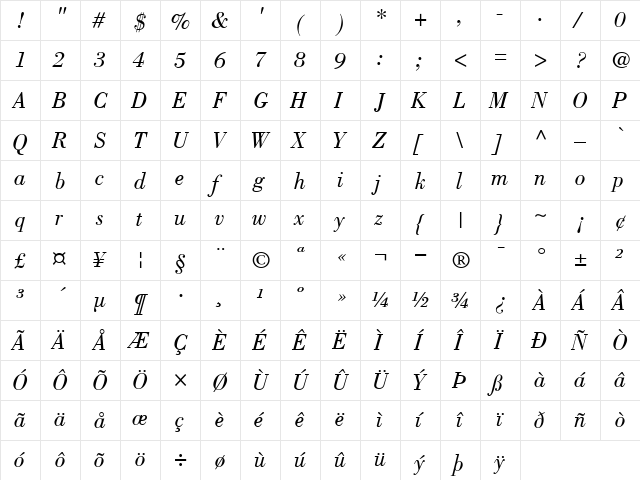
Bodoni-Book BookItalic Font Preview
Bodoni-Book BookItalic
Design Context for Bodoni-Book Typeface
Bodoni-Book takes a measured approach to typography — its balanced proportions and neutral character make it a reliable workhorse for both digital and print work. Its italic angle brings a sense of urgency and motion to the letterforms.
Pro Tip: Try Bodoni-Book for annotation and caption copy alongside an upright companion — the contrast in angle creates a dynamic but ordered typographic system.